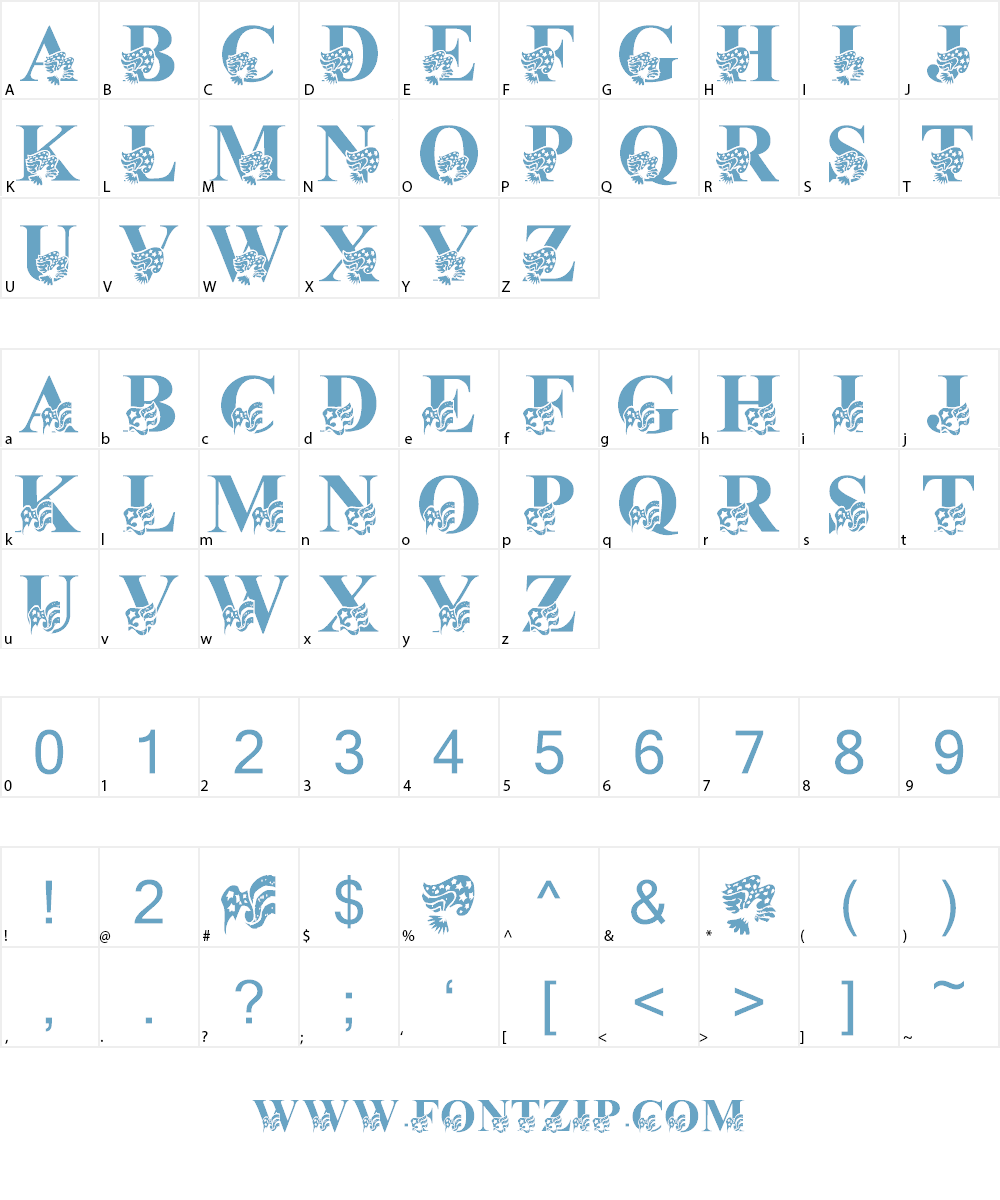
This font is a tribute to the United States of America and all that she
stands for. And to the victims and families of the victims of the
terrorist attack on America on 11 September 2001.
The images in this font are 4 differend American flags with images of
Eagles combined with them. Every other letter is a different flag; one
set for capital letters and one set for lower case (ie: AaBb all have
different images)
I sat and watched the horrible events unfold on TV, comforting friends
who have family in the area while they wait in agony to hear if they
were okay. And although I realize this font is but a small tribute, I
felt that I had to do something, anything to let those who suffer know
that they are not alone.